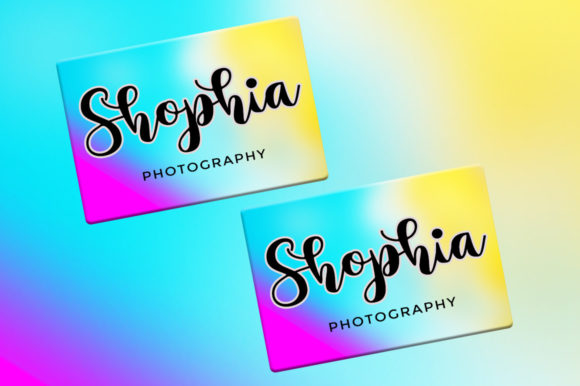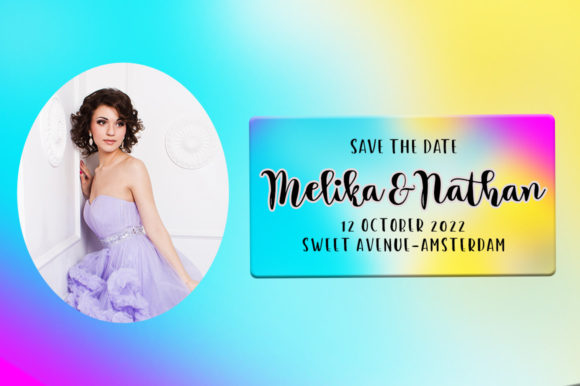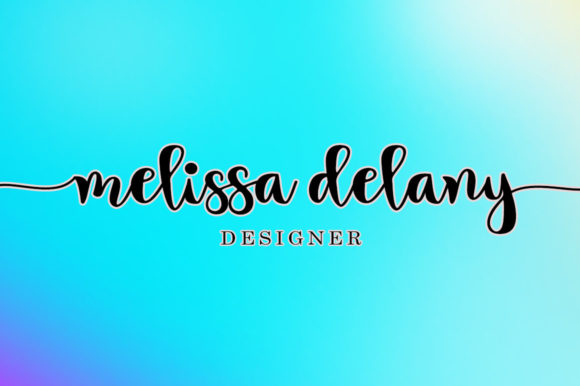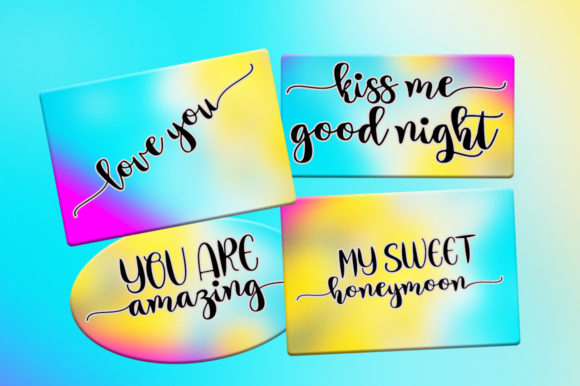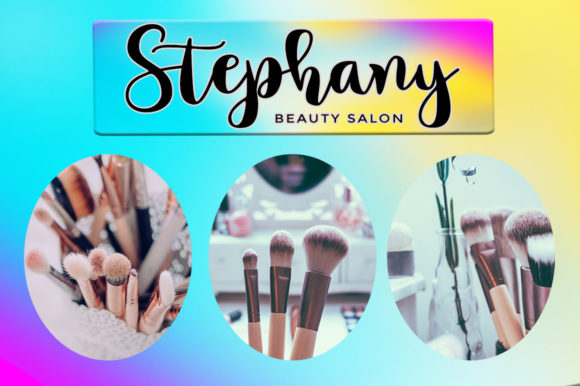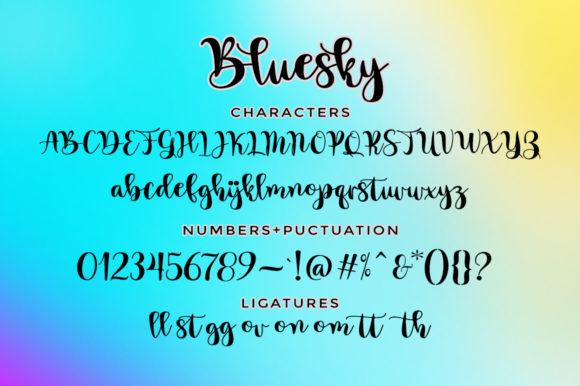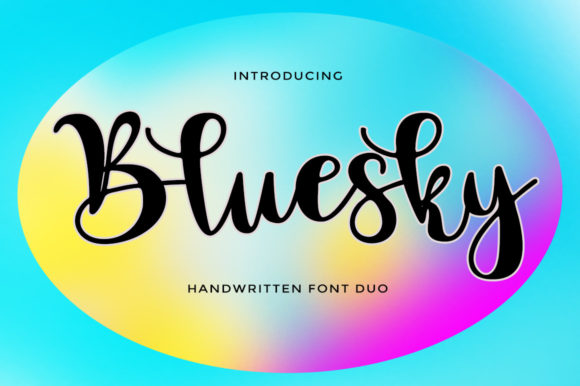
Introducing Bluesky Script Font: Elevate Your Designs with a Lovely Handwritten Touch
Are you a designer or crafter looking for a font that can add a personal touch to your creations? Look no further than the Bluesky Script Font. This beautiful handwritten font is perfect for a wide range of projects, from wedding invitations and branding materials to digital content and craft projects. With its elegant and flowing script style, Bluesky Script is sure to enhance any design and make it stand out.
The Versatility of Bluesky Script Font
One of the best things about Bluesky Script Font is its versatility. Whether you’re working on a formal or informal project, this font can adapt to any topic or theme. Its classic and timeless look makes it suitable for traditional designs, while its modern and elegant feel also makes it perfect for contemporary projects. From fashion and beauty to lifestyle and food, Bluesky Script Font can be used in a wide range of industries and niches.
Bluesky Script Font is PUA (Private Use Area) encoded, which means that you can access all glyphs and swashes with ease. PUA encoding allows designers to access additional characters and features that are not available in standard fonts. This means that you can easily add flourishes and swashes to your text, making it even more beautiful and unique. With Bluesky Script Font, you can take your designs to the next level and create something truly special.
Why Designers and Crafters Love Bluesky Script Font
So, why do designers and crafters love Bluesky Script Font? Here are just a few reasons:
- Unique and Personalized Look: Bluesky Script Font adds a personal touch to any design, making it stand out from the crowd.
- Elegant and Sophisticated: This font exudes elegance and sophistication, making it perfect for high-end designs and luxury brands.
- Easy to Use: With PUA encoding, accessing glyphs and swashes is easy, making it simple to create beautiful designs.
- Versatile: Bluesky Script Font can be used in a wide range of projects and industries, making it a valuable addition to any font library.
How to Use Bluesky Script Font in Your Designs
Using Bluesky Script Font in your designs is easy. Here are a few tips to get you started:
- Pair it with Other Fonts: Combine Bluesky Script Font with other fonts to create a unique and interesting contrast.
- Experiment with Swashes: Use the PUA encoded glyphs and swashes to add flourishes and personality to your text.
- Use it for Headings and Titles: Bluesky Script Font is perfect for headings and titles, adding a touch of elegance and sophistication to your designs.
In conclusion, Bluesky Script Font is a beautiful and versatile handwritten font that can elevate any design. With its elegant and flowing script style, PUA encoding, and ease of use, it’s perfect for designers and crafters looking to add a personal touch to their creations. Whether you’re working on a formal or informal project, Bluesky Script Font is sure to enhance your design and make it stand out. So why not give it a try and see the difference it can make?